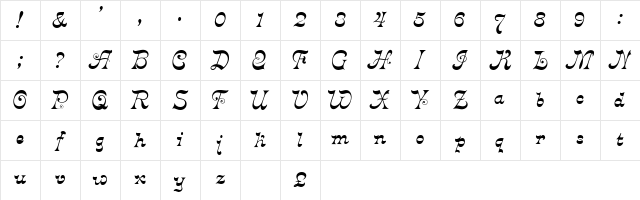
Derniere Regular
Design Context for Derniere
Derniere is a composed and adaptable typeface that performs quietly and consistently across a wide range of design contexts.